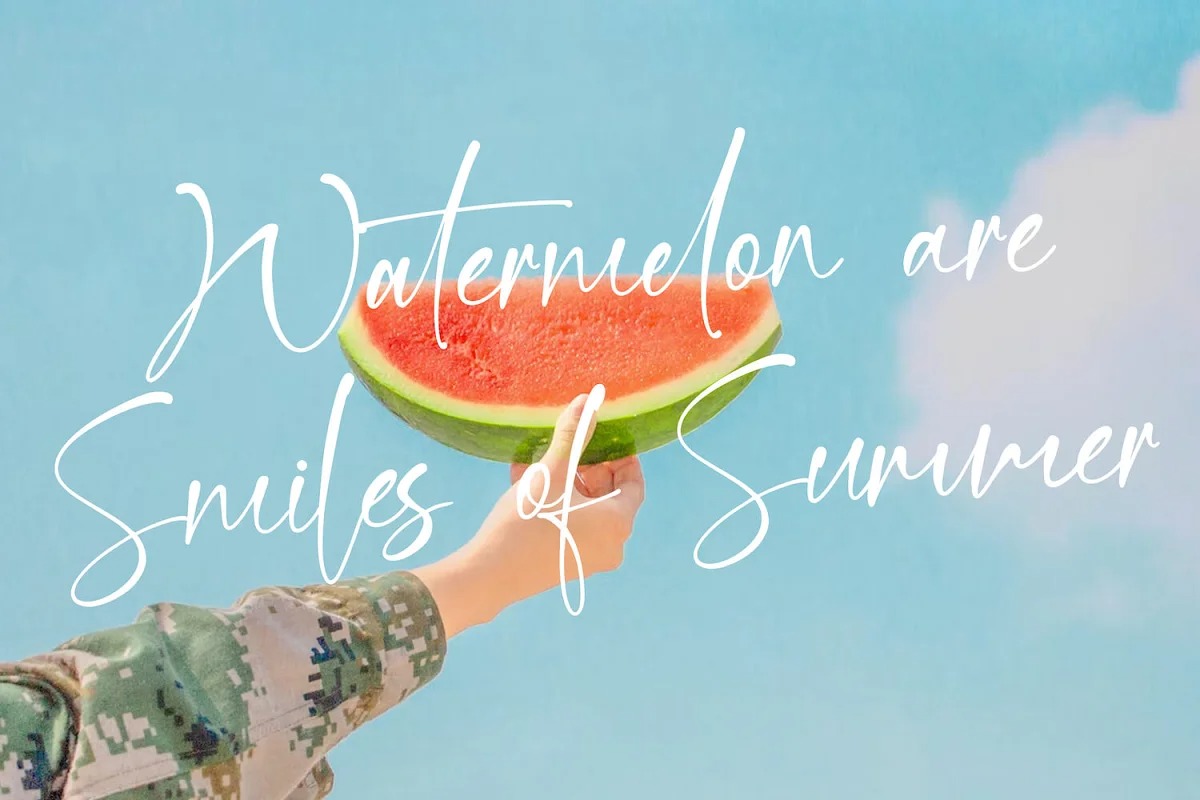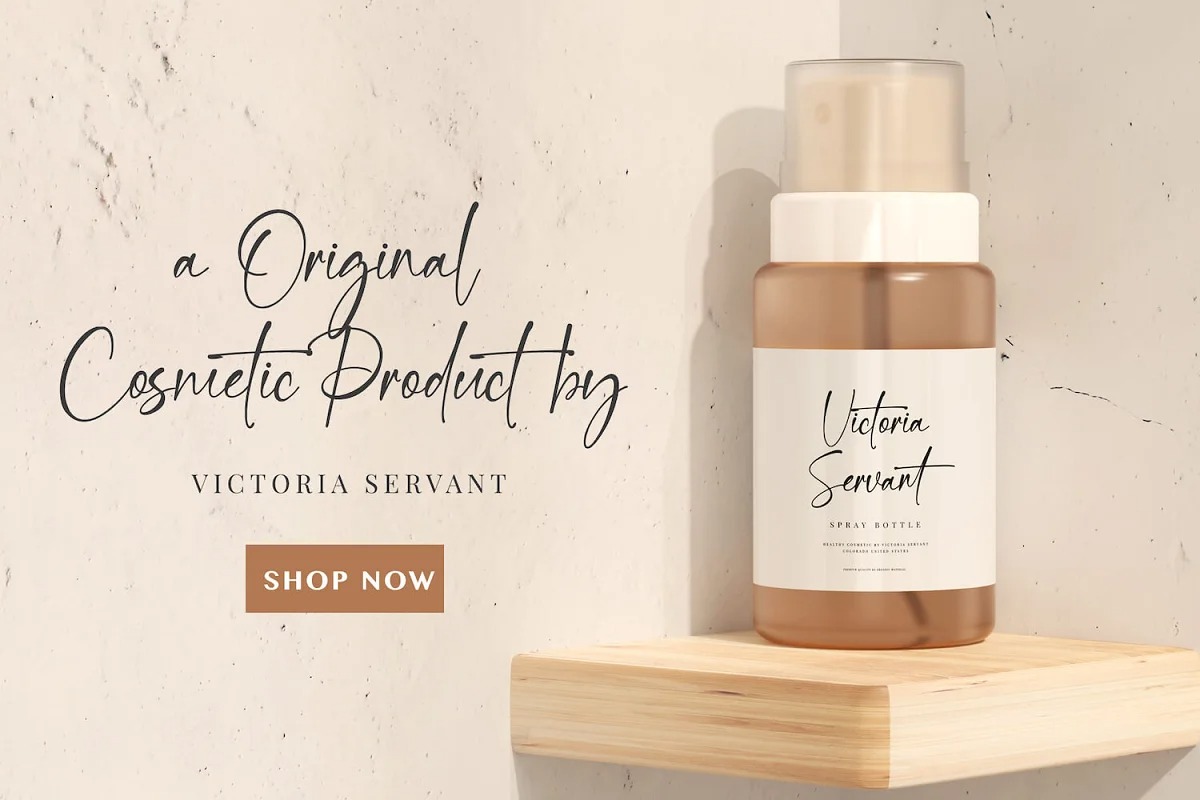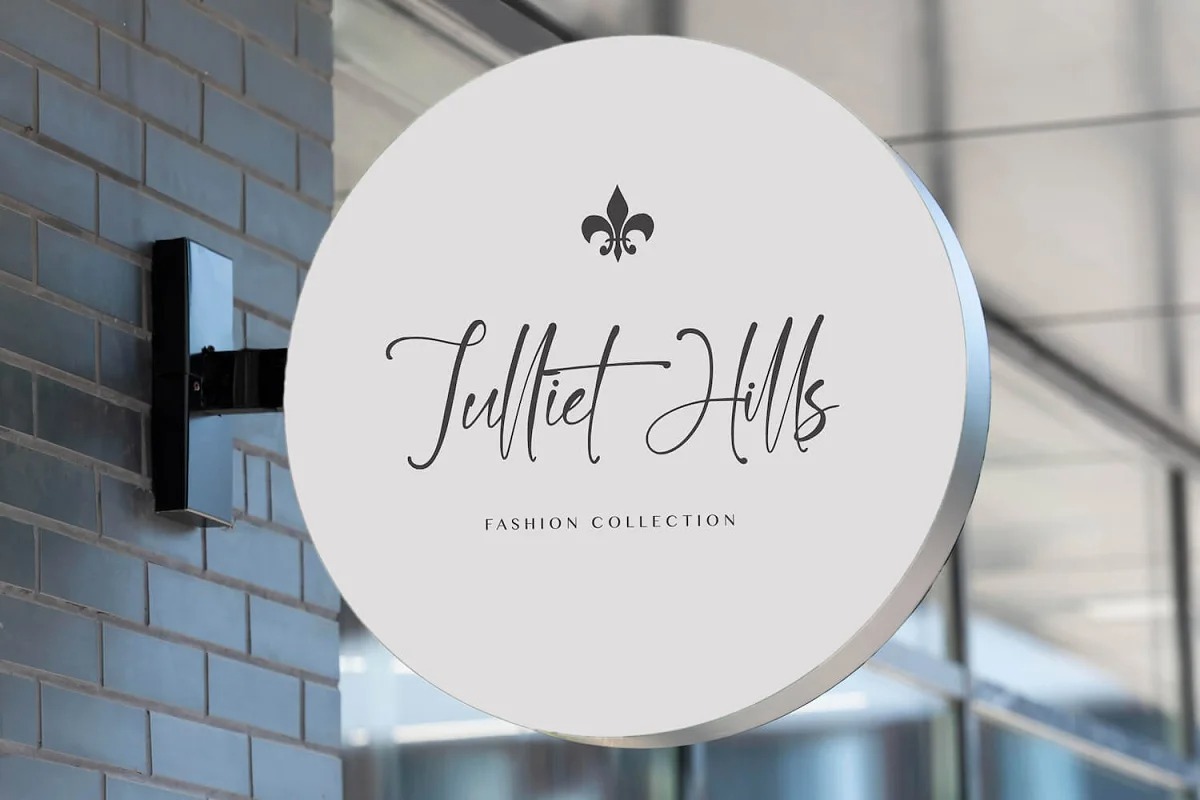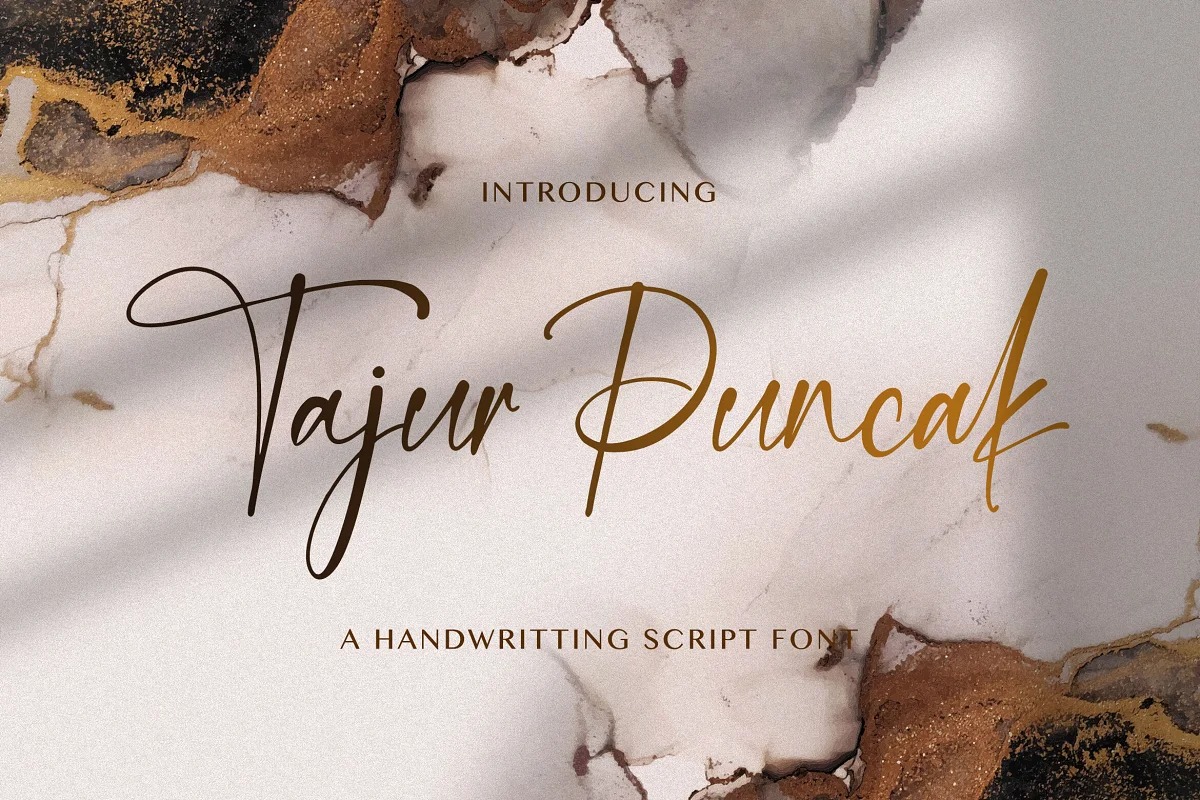
Tindak Pundi Handwritten Font is modern feminine typeface, every single letters have been carefully crafted to make your text looks beautiful. It has beautiful and well balanced characters and as a result, it matches a wide pool of designs. Add it to your most creative ideas and notice how it makes them come alive!